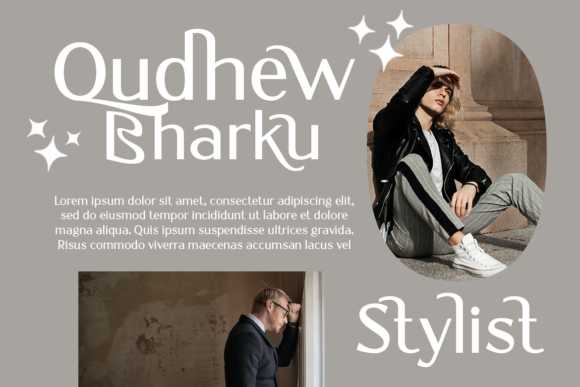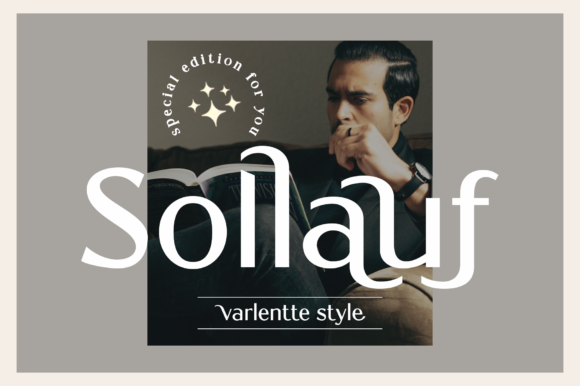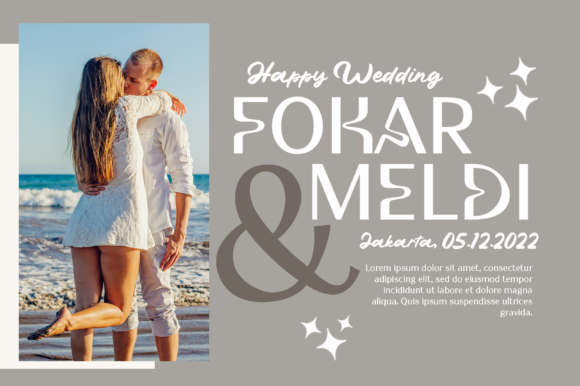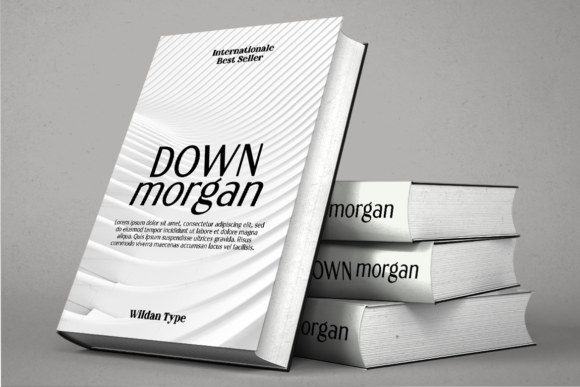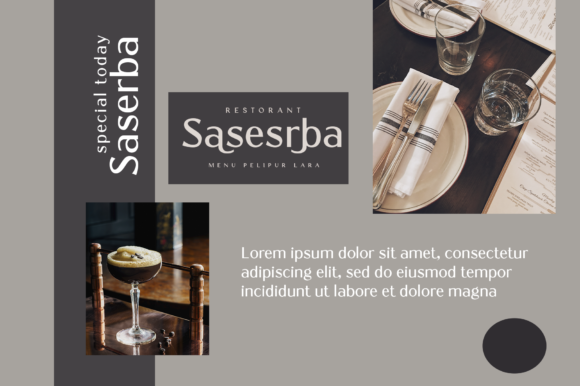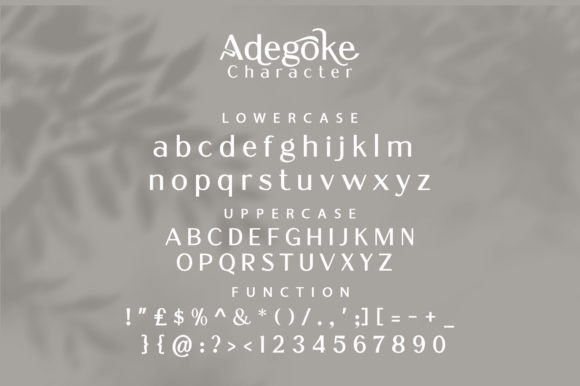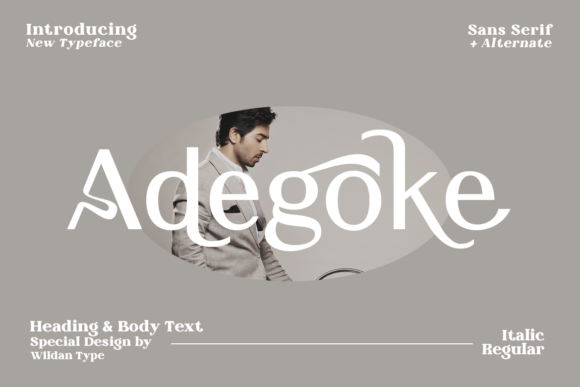
Adegoke Font: Elevate Your Designs with Elegance and Style
In the world of typography, a font can make or break a design. A good font can elevate your creation, making it stand out from the crowd, while a poor one can detract from the overall aesthetic. If you’re a designer, craft or enthusiast, you’re likely always on the lookout for high-quality fonts to add to your library. That’s where Adegoke Font comes in – a stylish and elegant sans serif font that’s sure to become an incredible asset to your collection.
The Adegoke Font Advantage
Adegoke Font is a versatile sans serif font that can be used for a wide range of design projects. Whether you’re working on a logo, brochure, website, or social media graphics, Adegoke Font is the perfect choice. Its clean and modern lines make it easy to read, while its elegant style adds a touch of sophistication to any design.
Key Features of Adegoke Font
- Stylish and Elegant Design: Adegoke Font boasts a stylish and elegant design that’s perfect for creating visually appealing graphics.
- Sans Serif Font: The font’s sans serif design makes it easy to read, even at small sizes.
- Versatile: Adegoke Font can be used for a wide range of design projects, from logos to websites.
- High-Quality: The font is designed with high-quality craftsmanship, ensuring that it looks great in any design.
Why Choose Adegoke Font?
With so many fonts available, why choose Adegoke Font? The answer lies in its unique combination of style, elegance, and versatility. Adegoke Font is more than just a font – it’s a design solution that can elevate any creation. Whether you’re a professional designer or a crafty enthusiast, Adegoke Font is the perfect addition to your font library.
Benefits for Designers
As a designer, you know how important it is to have a wide range of fonts at your disposal. Adegoke Font offers a range of benefits, including:
- Customization: The font can be customized to suit your design needs, ensuring that it fits perfectly with your brand’s aesthetic.
- Consistency: Adegoke Font ensures consistency across all your designs, helping to build a strong brand identity.
Benefits for Crafters
If you’re a crafty enthusiast, Adegoke Font can add a touch of elegance and sophistication to your projects. Whether you’re working on a scrapbooking project, card making, or journaling, Adegoke Font is the perfect choice.
- Adds a Personal Touch: Adegoke Font adds a personal touch to your crafts, making them stand out from the crowd.
- Easy to Read: The font’s clean design makes it easy to read, even at small sizes.
- Versatile: Adegoke Font can be used for a wide range of craft projects, from paper crafting to DIY home decor.
How to Use Adegoke Font
- Experiment with Different Sizes: Adegoke Font looks great at a range of sizes, from small to large.
- Pair with Other Fonts: Adegoke Font pairs well with other fonts, making it easy to create visually appealing combinations.
- Use for Headings and Body Text: Adegoke Font is perfect for both headings and body text, making it a versatile addition to your font library.
In conclusion, Adegoke Font is a stylish and elegant sans serif font that’s perfect for designers and crafty enthusiasts alike. Its versatility, high-quality design, and ease of use make it an incredible asset to any font library. Whether you’re working on a design project or a crafty endeavor, Adegoke Font is sure to elevate your creation and add a touch of sophistication.